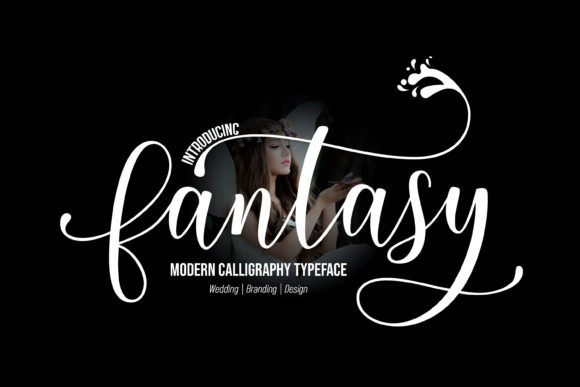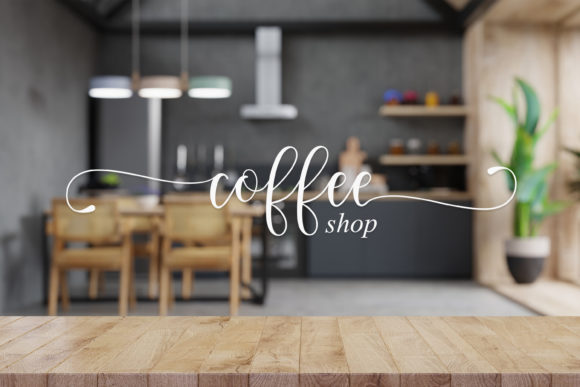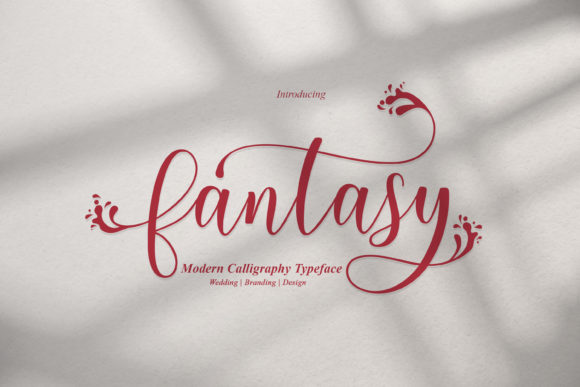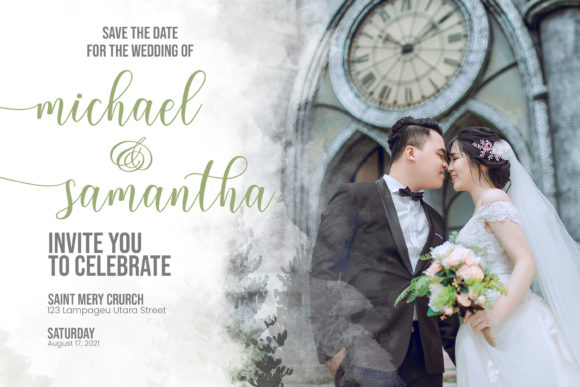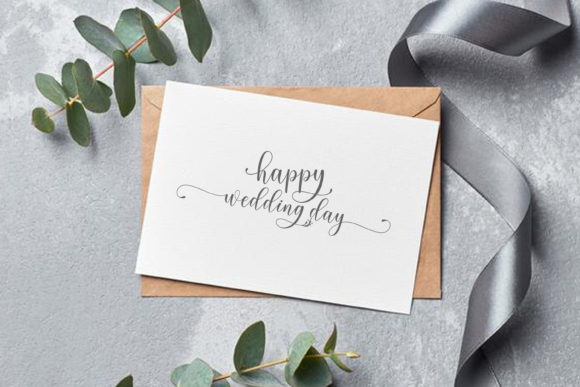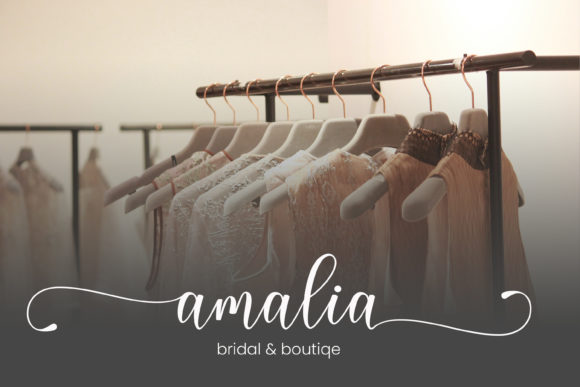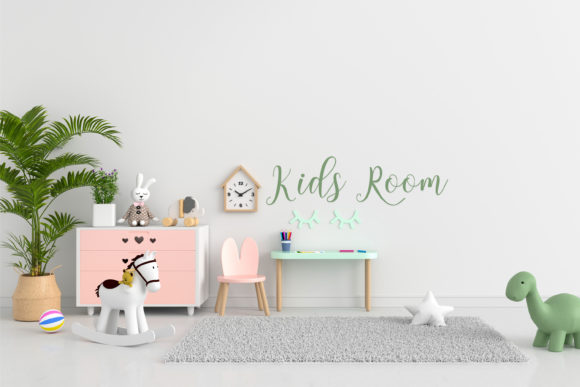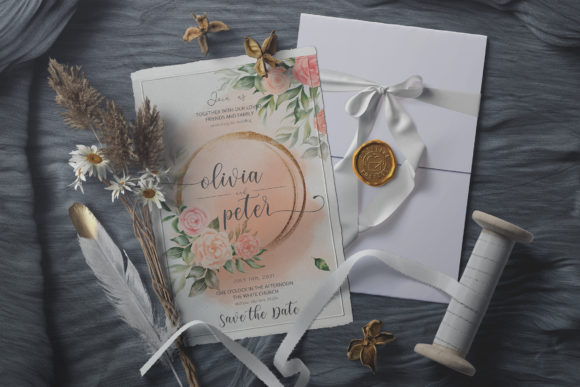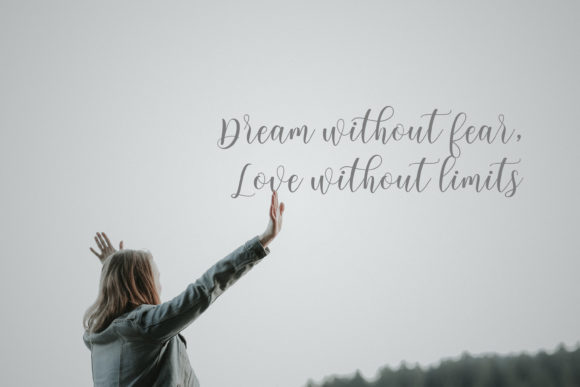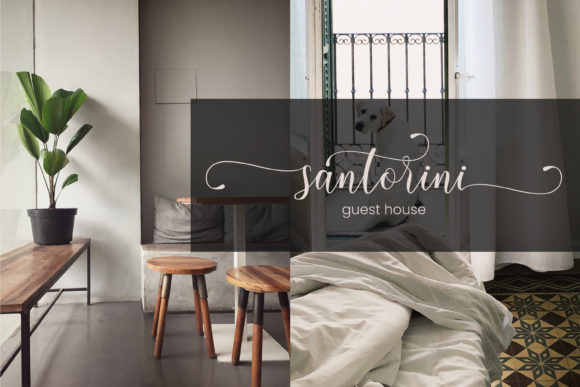
Fantasy Script Font
About Fantasy Script Font
Fantasy Script is an exquisite script font that exudes sophistication and elegance. With its chic and refined style, this font adds a touch of luxury to any project.
The stylish alternates and ligatures in Fantasy Script give you even more design possibilities. You can create unique and eye-catching compositions by using the different letter variations and connecting swashes. These additional glyphs add a level of customization and creativity to your designs, making them truly stand out.
Whether you’re working on branding, logo design, invitations, or any other project, Fantasy Script brings a touch of elegance and class. Its smooth and flowing letterforms create a harmonious and balanced look, while the fine details add a delicate and refined touch.
The versatility of Fantasy Script allows it to adapt to various design themes and aesthetics. It complements both modern and vintage styles, making it suitable for a wide range of projects. Whether you’re going for a minimalistic and clean design or a more ornate and decorative look, Fantasy Script can elevate your typography and enhance your overall design.
Fantasy Script is not only aesthetically pleasing but also easy to work with. Its well-designed letterforms ensure legibility and readability, even at smaller sizes. This makes it ideal for both print and digital designs.
In conclusion, Fantasy Script is a chic and refined script font that exudes sophistication and elegance. With its stylish alternates and ligatures, it offers a wide range of design possibilities. Whether you’re working on branding, invitations, or other projects, Fantasy Script adds a touch of luxury and class. Embrace the versatility of this font and let it elevate your designs to new heights.